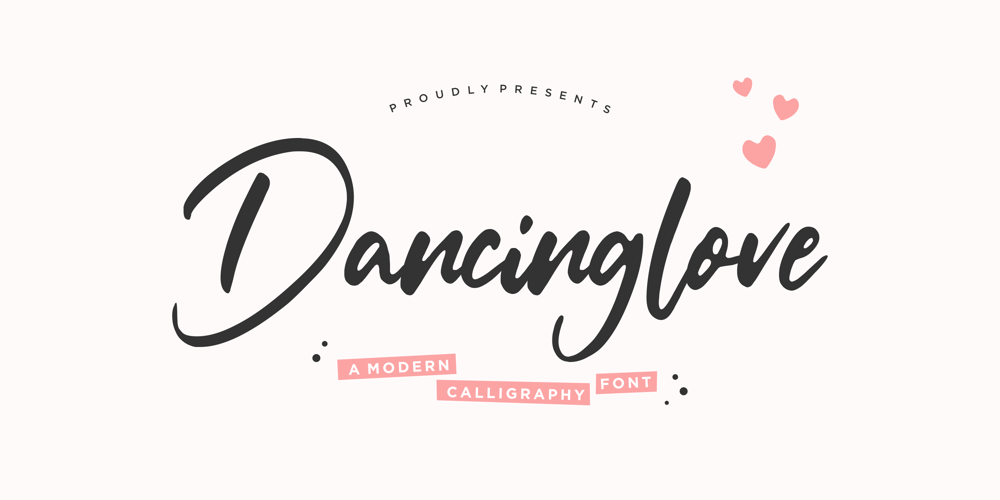
Dancinglove Font Family was designed by Restu Angga and published by Balpirick. Dancinglove contains 1 styles and family package options. Dancinglove is a Modern Calligraphy Font.Dancinglove is a unique and elegant handwritten font. It looks beautiful on a variety of designs requiring a personalized style, such as wedding invitations, thank you cards, weddings, greeting cards, logos and so on.Dancinglove also multilingual support.Enjoy the font, feel free to comment or feedback, send me PM or email.Thank you!